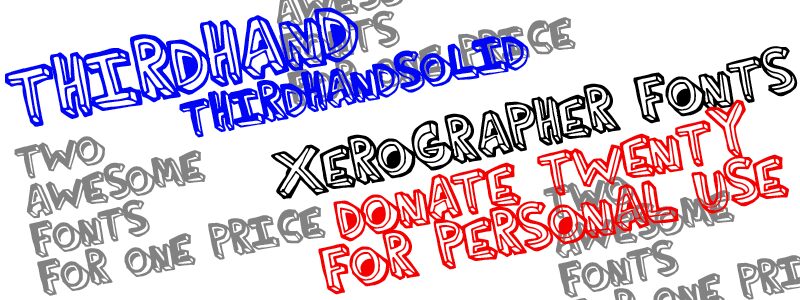
ThirdHand Solid by Xerographer Foundry is a free cartoon display font with chunky, uneven letters and a lively three-dimensional effect. Inset highlights and wobbling contours make the forms look slightly inflated.
On snack packaging, its bulky shapes can turn a product name into a playful mascot-like graphic. The same rough humor suits comedy posters, children's merchandise, and game title cards. Its exaggerated bounce is especially at home with slapstick, street-art cartoons, and mischievous character illustration.
The font is ThirdHand, from Xerographer Fonts.